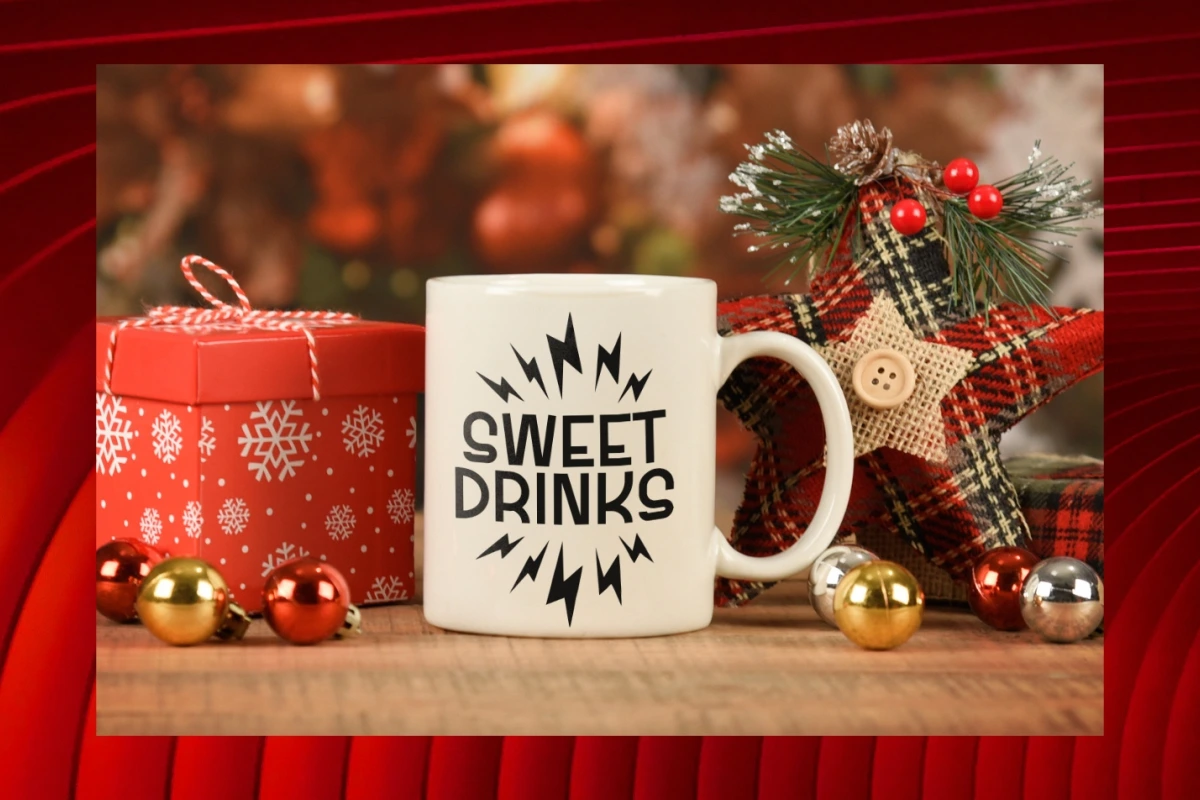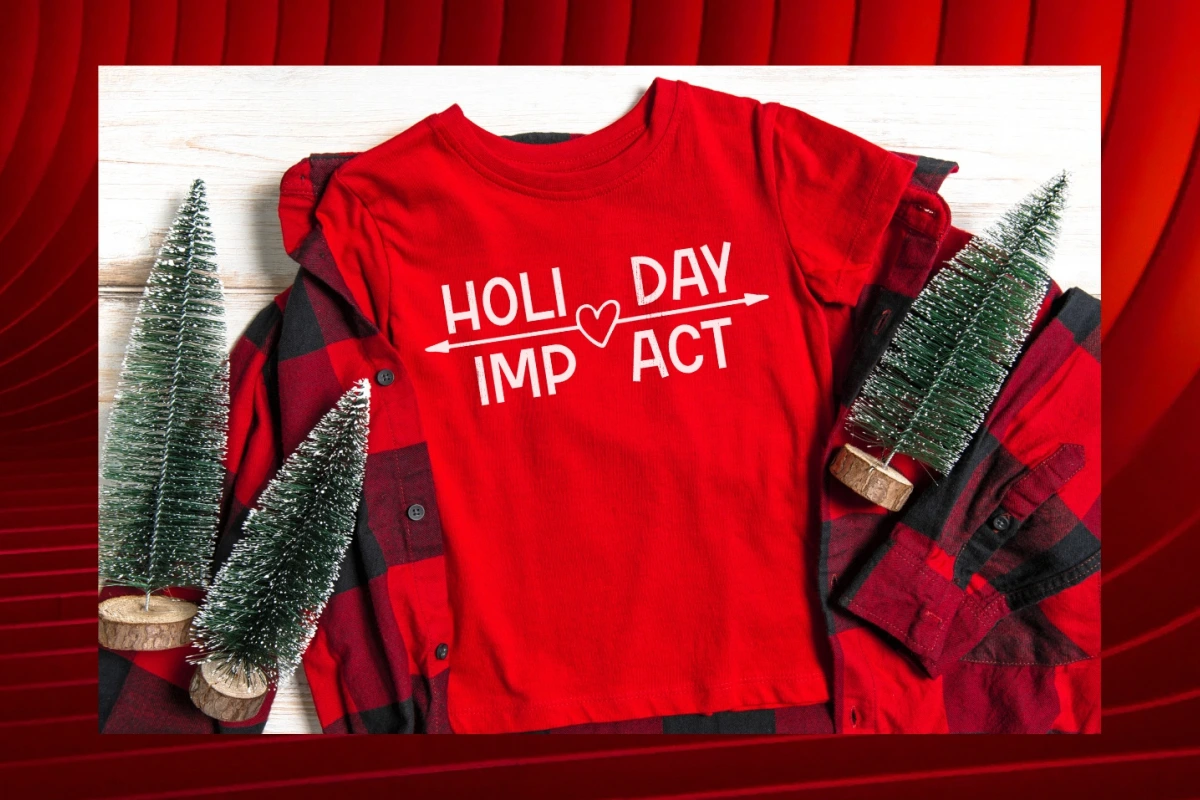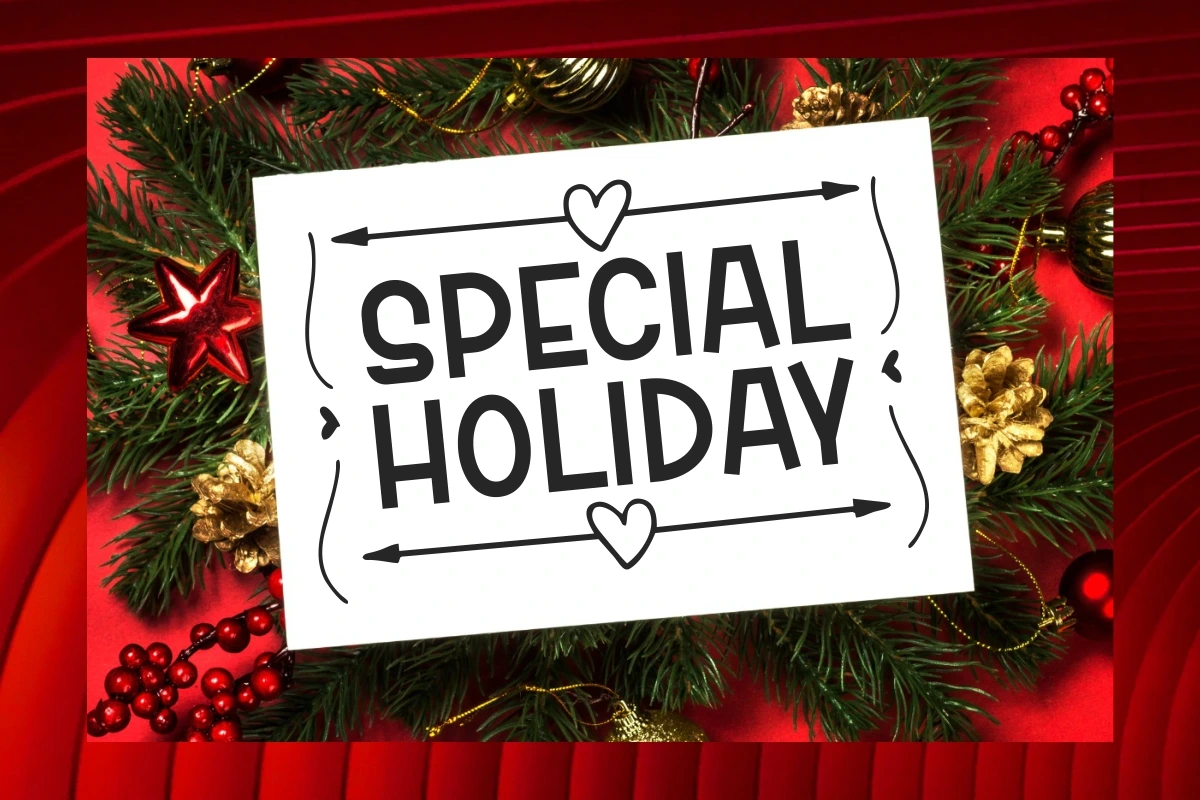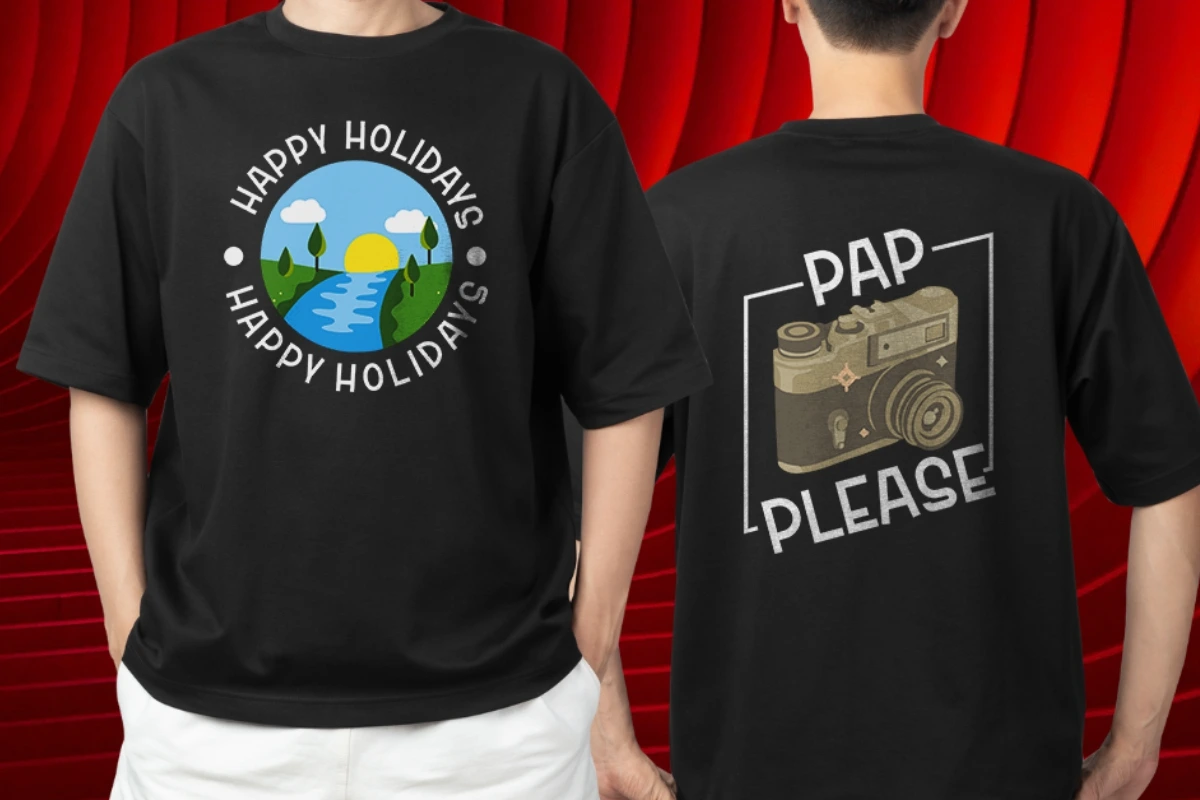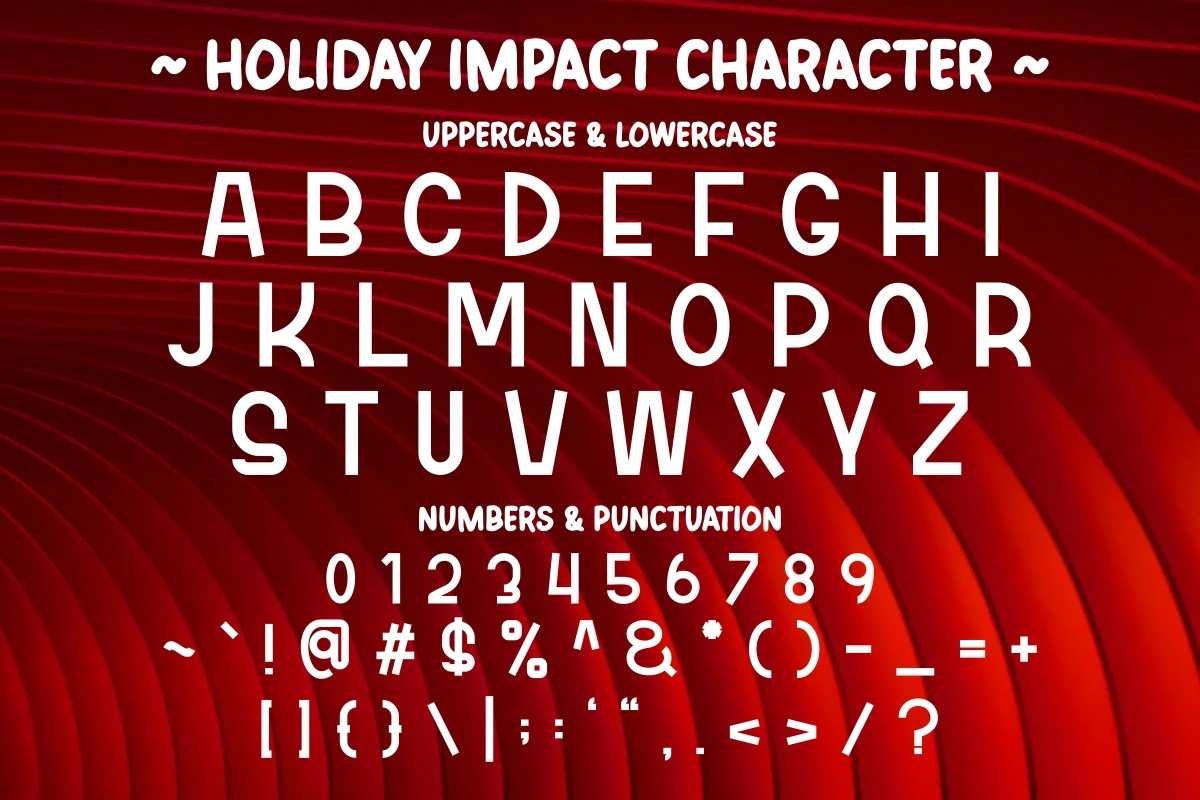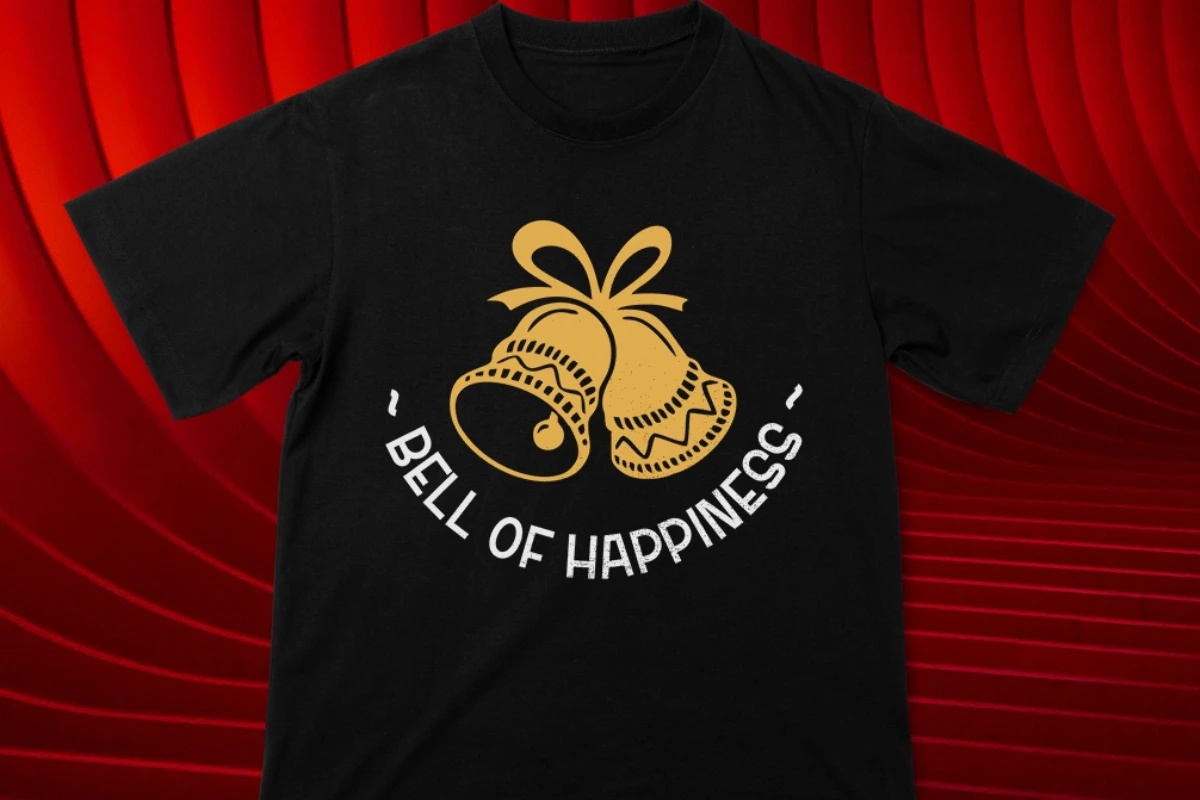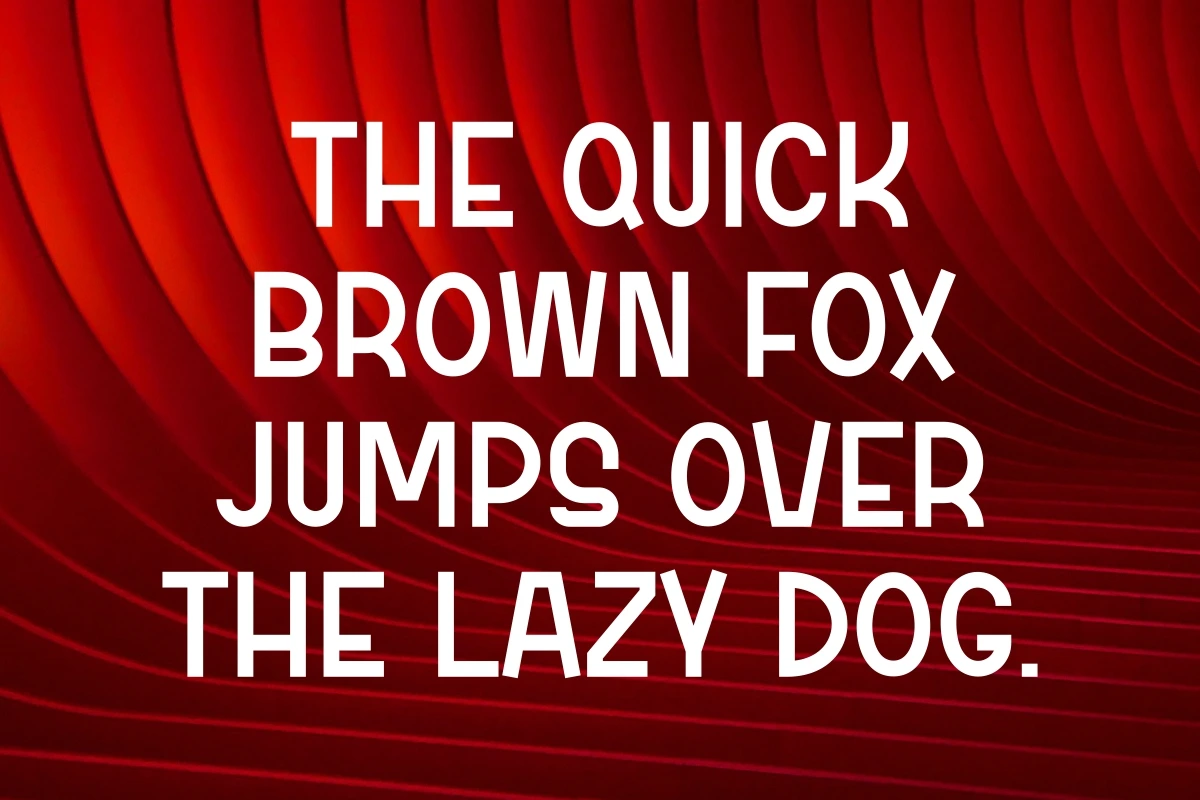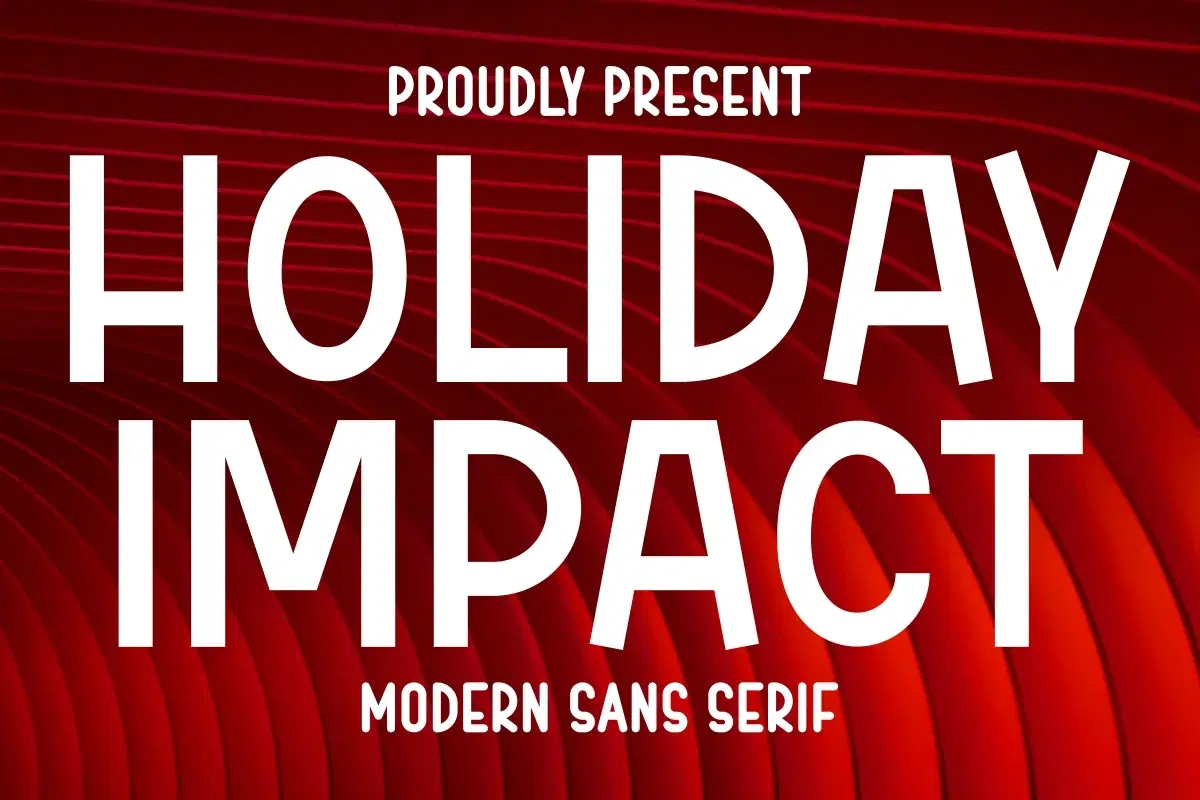
Holiday Impact - Modern Sans Serif Font
Immerse your designs in the timeless elegance of the season with 'Holiday Impact'. This modern display font, adorned in a classic and rich red hue, is meticulously crafted to make a lasting impression on your holiday creations.